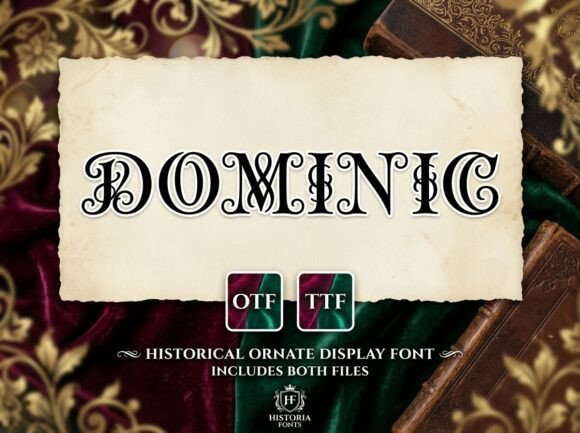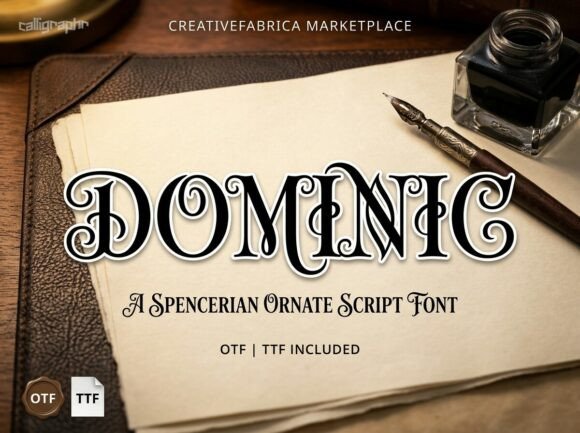
Introducing Dominic Font: The Epitome of Timeless Elegance
In the realm of typography, few fonts manage to convey the essence of luxury and sophistication as effortlessly as Dominic Font. This premium display font is meticulously crafted to exude a regal and refined aura, making it the perfect choice for designers and crafters seeking to elevate their projects with a touch of elegance. With its bold, high-contrast serif letterforms, intricate Victorian swashes, and classical calligraphic flourishes, Dominic Font is poised to become the go-to typeface for luxury branding, vintage-inspired designs, and high-end applications.
The Design Philosophy Behind Dominic Font
Dominic Font’s design is rooted in the principles of classic typography, with a modern twist. The font features a crisp white inline and a bold black outline, creating a striking contrast that commands attention. This distinctive characteristic allows Dominic Font to shine in various applications, from independent luxury branding to high-end wedding invitations. The bold, high-contrast serif letterforms are intricately woven with dramatic Victorian swashes and classical calligraphic flourishes, imbuing the font with a sense of history and sophistication.
Applications for Dominic Font
Dominic Font’s versatility and elegance make it an excellent choice for a wide range of applications, including:
- Independent Luxury Branding: Establish a strong brand identity with Dominic Font’s regal and sophisticated aesthetic.
- Vintage-Inspired Label Design: Add a touch of nostalgia and refinement to your label designs with Dominic Font’s classic charm.
- High-End Wedding Invitations: Make a lasting impression with Dominic Font’s elegant and sophisticated typography.
- High-Impact Social Media Headers: Elevate your social media presence with Dominic Font’s stately aesthetic and commanding presence.
Why Choose Dominic Font?
With an abundance of fonts available, what sets Dominic Font apart? Here are a few compelling reasons to choose Dominic Font for your next project:
- Unique Character: Dominic Font boasts a distinctive character that is both elegant and attention-grabbing.
- High-Quality Design: The font is meticulously crafted with precision and attention to detail, ensuring a premium look and feel.
- Versatility: Dominic Font can be used in a variety of applications, from luxury branding to high-end wedding invitations.
- Timeless Appeal: The font’s classic design ensures that it will remain relevant and stylish for years to come.
Tips for Using Dominic Font Effectively
To get the most out of Dominic Font, consider the following tips:
- Pair with Neutral Backgrounds: Allow Dominic Font to take center stage by pairing it with neutral backgrounds that won’t compete for attention.
- Experiment with Colors: While the font’s bold black outline and crisp white inline are striking, don’t be afraid to experiment with other colors to find the perfect fit for your project.
- Pay Attention to Kerning: As with any font, pay close attention to kerning to ensure that your text is evenly spaced and visually appealing.
Dominic Font is a premium display font that embodies the essence of timeless elegance. With its bold, high-contrast serif letterforms, intricate Victorian swashes, and classical calligraphic flourishes, this font is poised to become the premier choice for designers and crafters seeking to elevate their projects with a touch of luxury and sophistication. Whether you’re working on independent luxury branding, vintage-inspired label design, high-end wedding invitations, or high-impact social media headers, Dominic Font is the perfect choice.